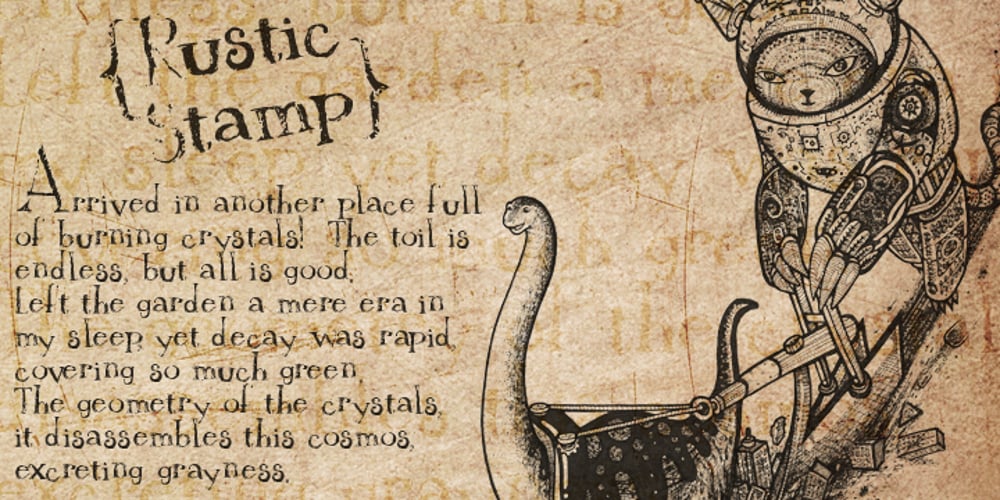
Rustic Stamp Font Family was designed by Luke William Turvey, Natsuko Hayashida and published by Okaycat. Rustic Stamp contains 1 styles and family package options. Rustic Stamp presents gritty lettering produced by unknown and ancient mechanical means. Perhaps it was even meticulously hand-crafted. The effect is a near-magical quality laid over Rustic Stamp’s jittery baseline, giving this font a unique character intensity. Great for a storybook, adding fantasy or nostalgic elements to the text, or if simply a faded worn look is required. Rustic Stamp is extended, containing West European diacritics and ligatures, making it suitable for multilingual environments and publications.